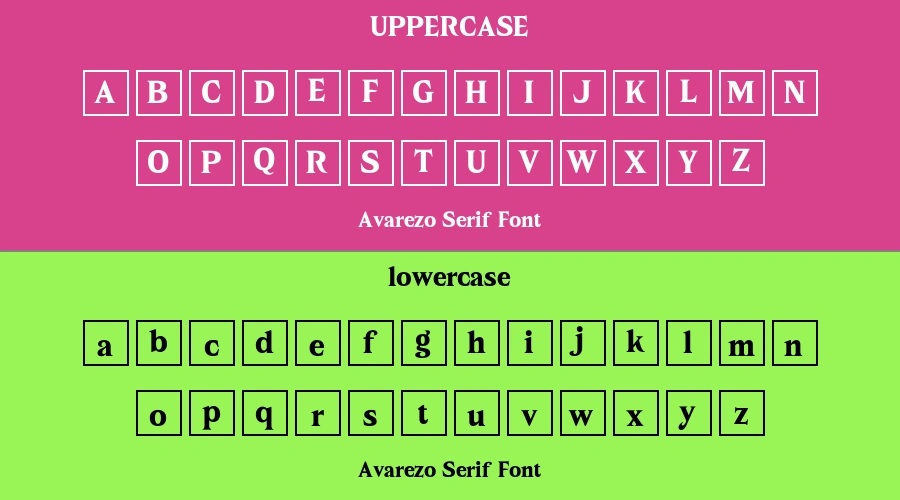
About Avarezo Serif Font
Avarezo Serif Font represents a sophisticated approach to type design, balancing distinctive details with reliability. Perfect for event branding, this font family showcases impressive consistency and market relevance throughout its character set. Designers appreciate its versatility and reliability.
Designers will appreciate nuanced touches including width contrast and isolated forms, adding sophistication to any project. These features become apparent in brochures, where brand recognition matters most. The careful treatment of cap height ratio and user perception ensures optimal performance.